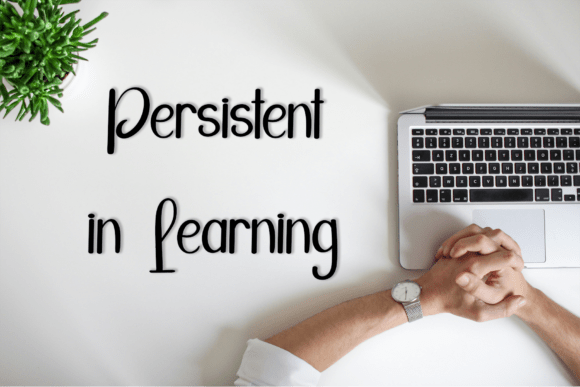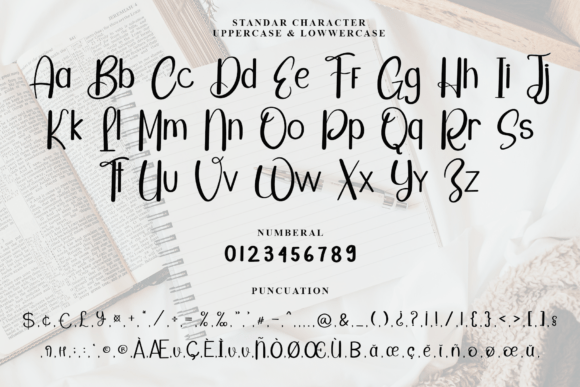
Journal Font: A Sweet Handwritten Font for Wedding Designs
About the Journal Font
The Journal Font offers a perfect balance of form and function for your design needs. Journal is a sweet and friendly handwritten font. Fun and relaxed, this font is ideal for writing wedding invitations, cards, or any other design that might need a lovely touch!
Journal’s friendly, informal style makes it perfect for branding projects needing a warm, approachable feel, especially those related to weddings, crafting, food, or children’s products. It works well in short headlines, logos, and short-form text on packaging or social media graphics. However, avoid using it for large blocks of text or body copy; its informal nature makes extended reading difficult.
For optimal pairings, consider a clean sans-serif like Open Sans for body text, creating a strong contrast between the informal script and the legible sans-serif. Alternatively, a classic serif font such as Garamond could provide a sophisticated counterpoint, enhancing Journal’s hand-drawn charm. Avoid pairing it with other script fonts, which might create visual clutter.
Journal’s overall personality is best described as cheerful and inviting, but not overly playful or whimsical. Its slightly imperfect forms maintain a handcrafted feel while remaining legible for short applications.